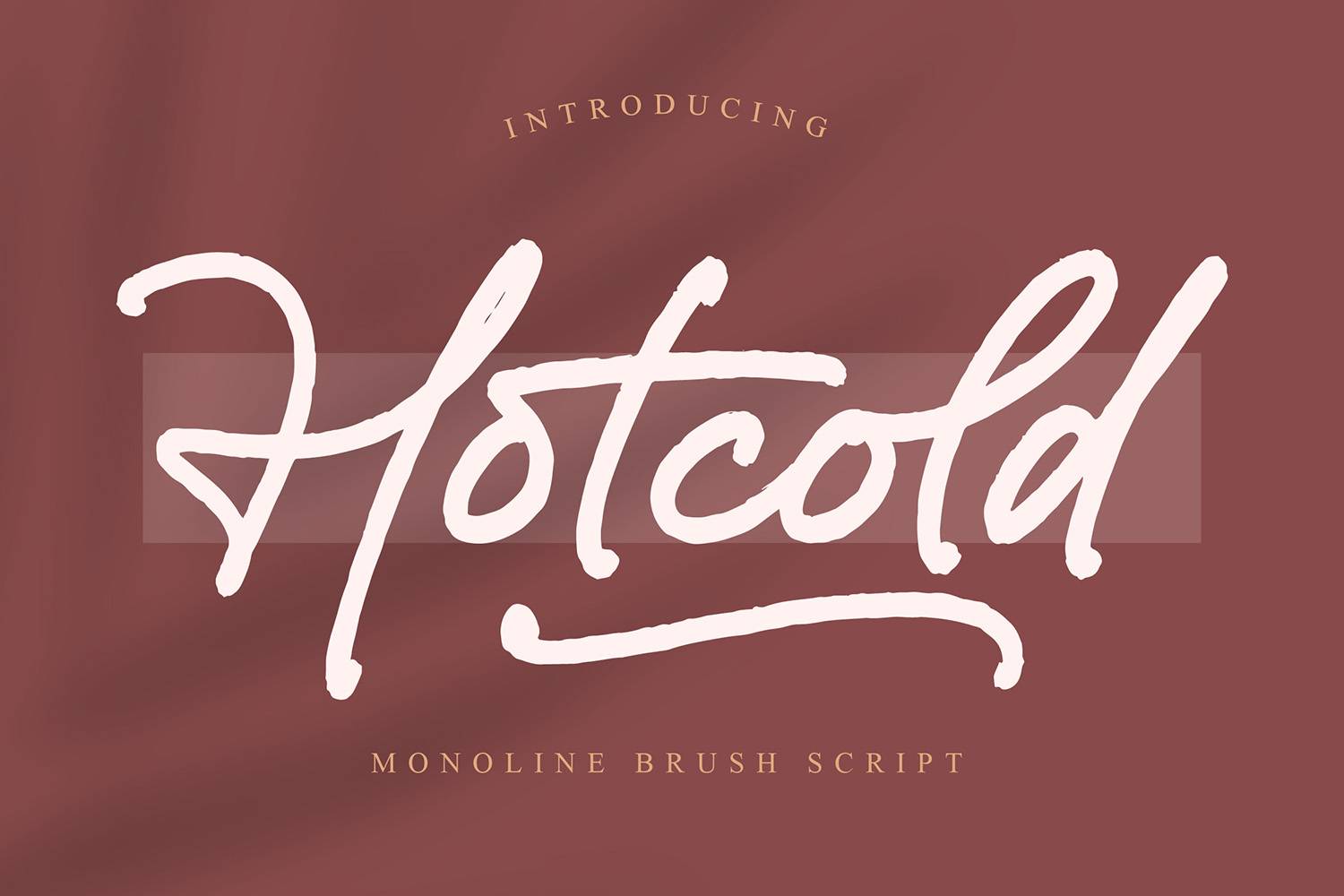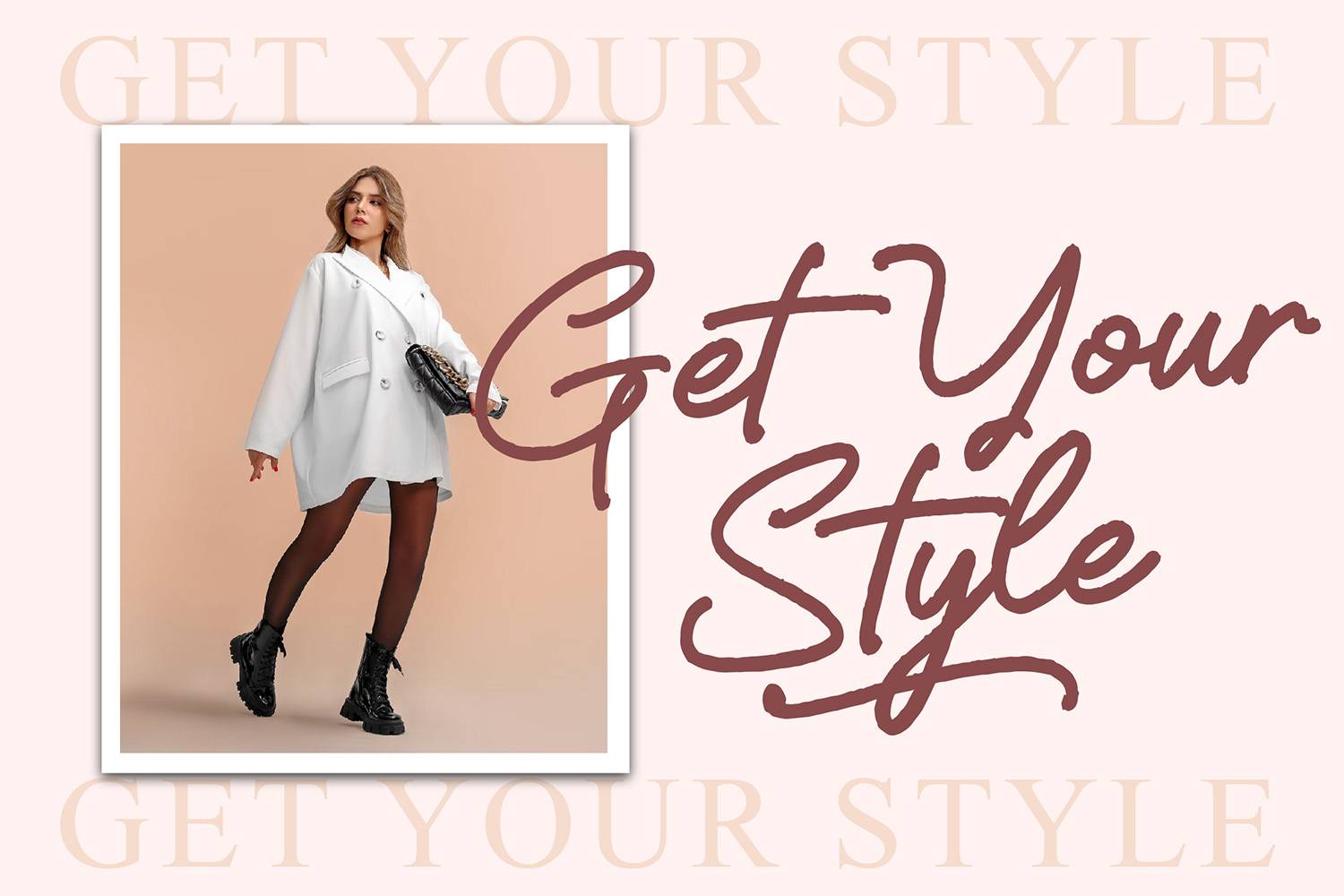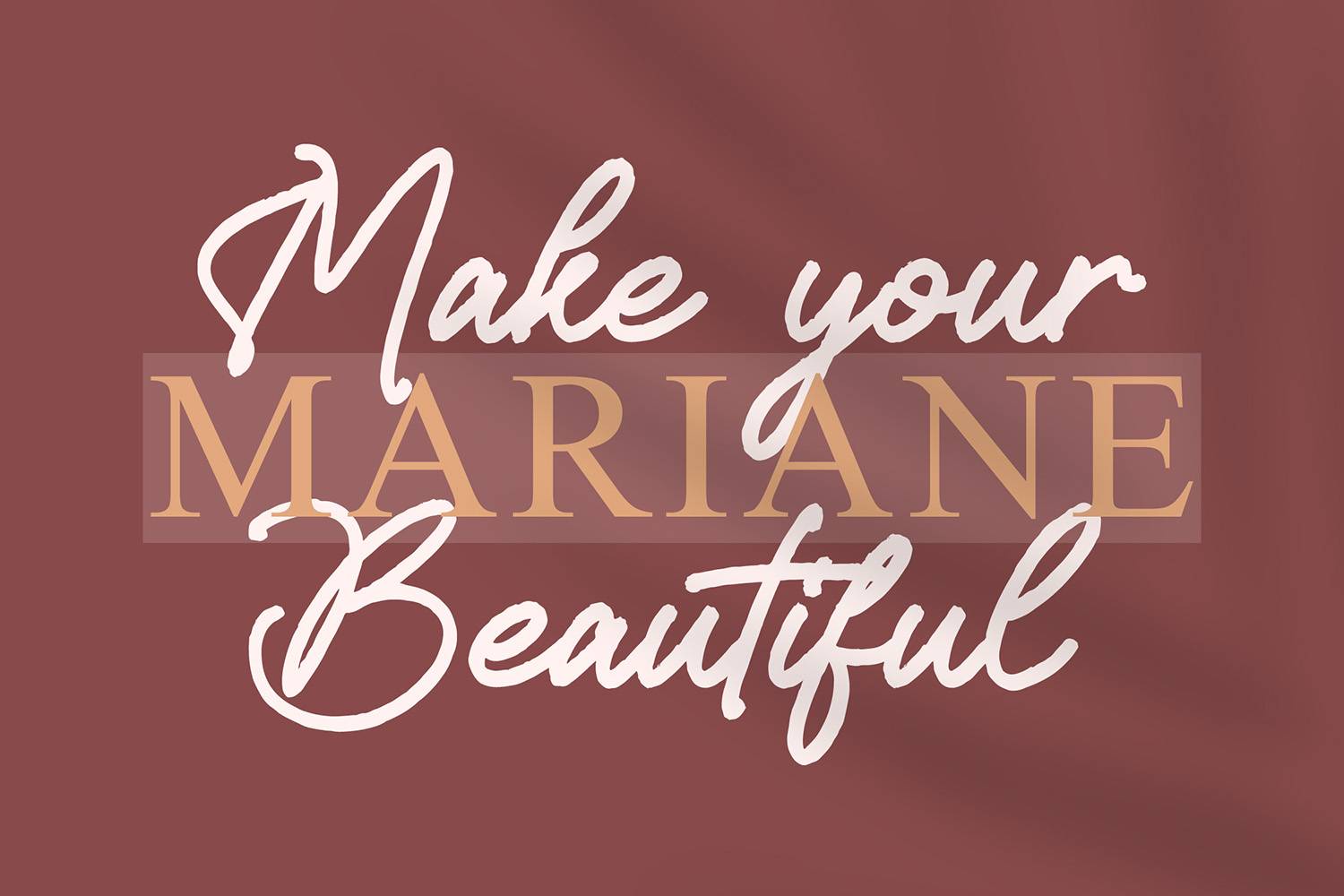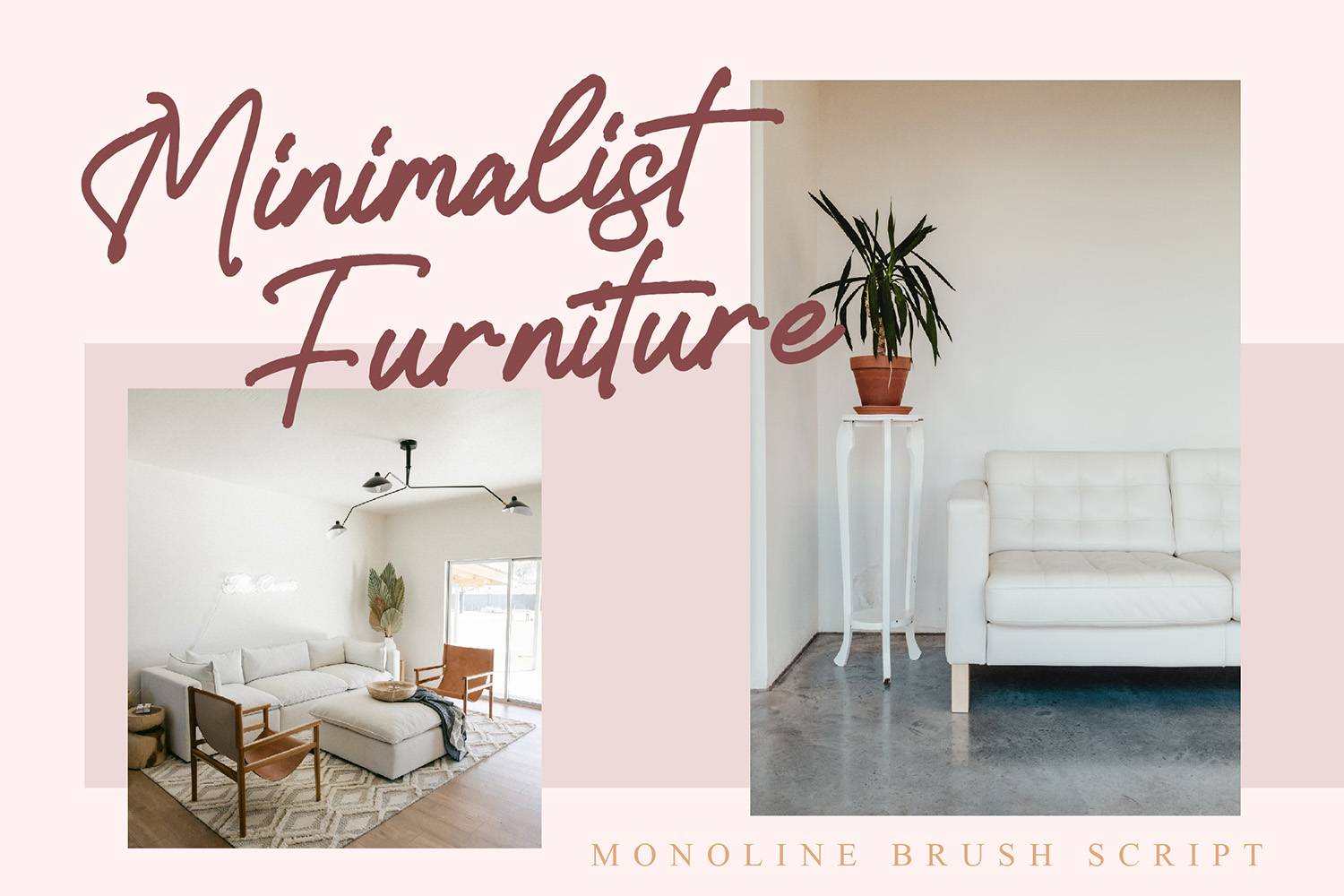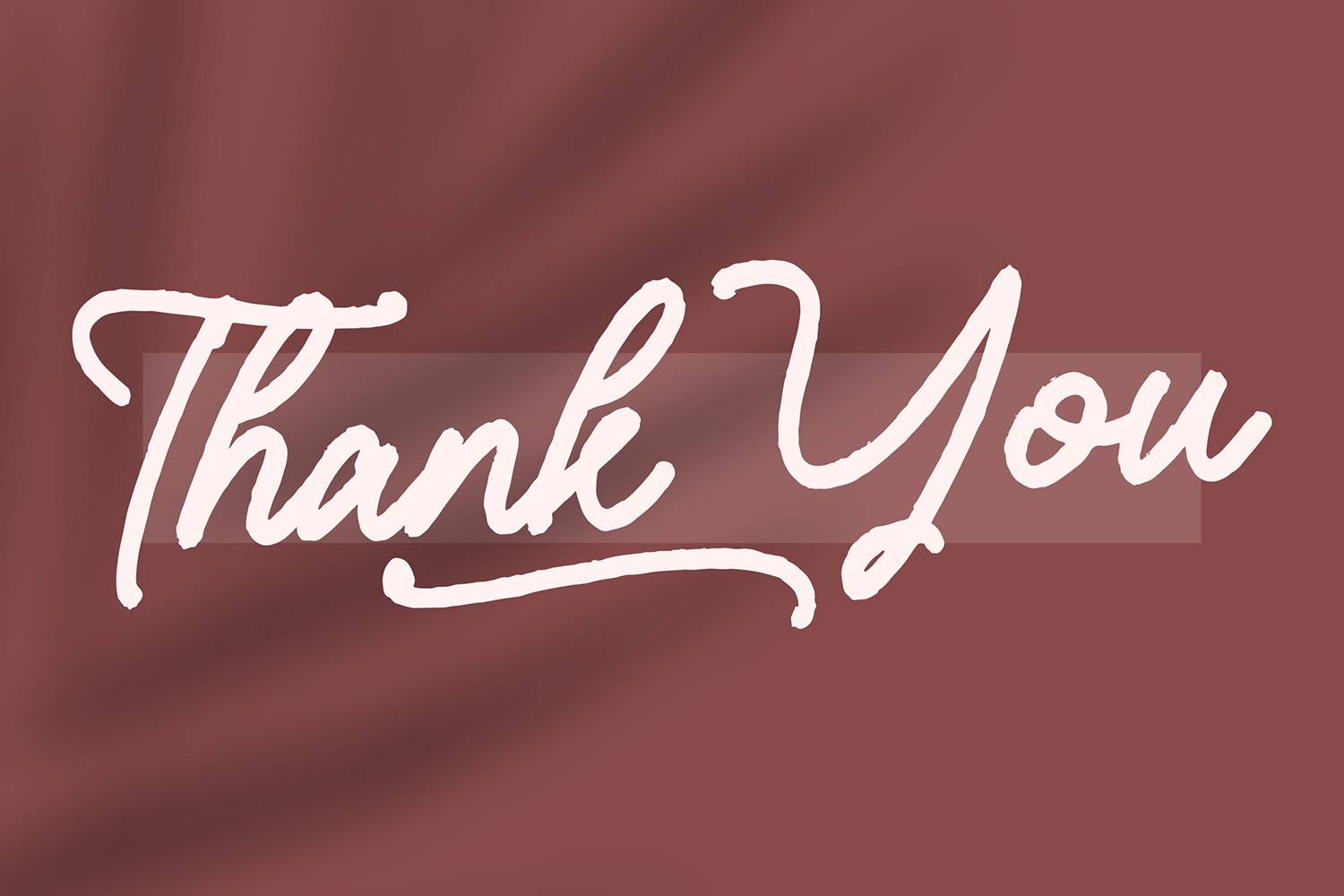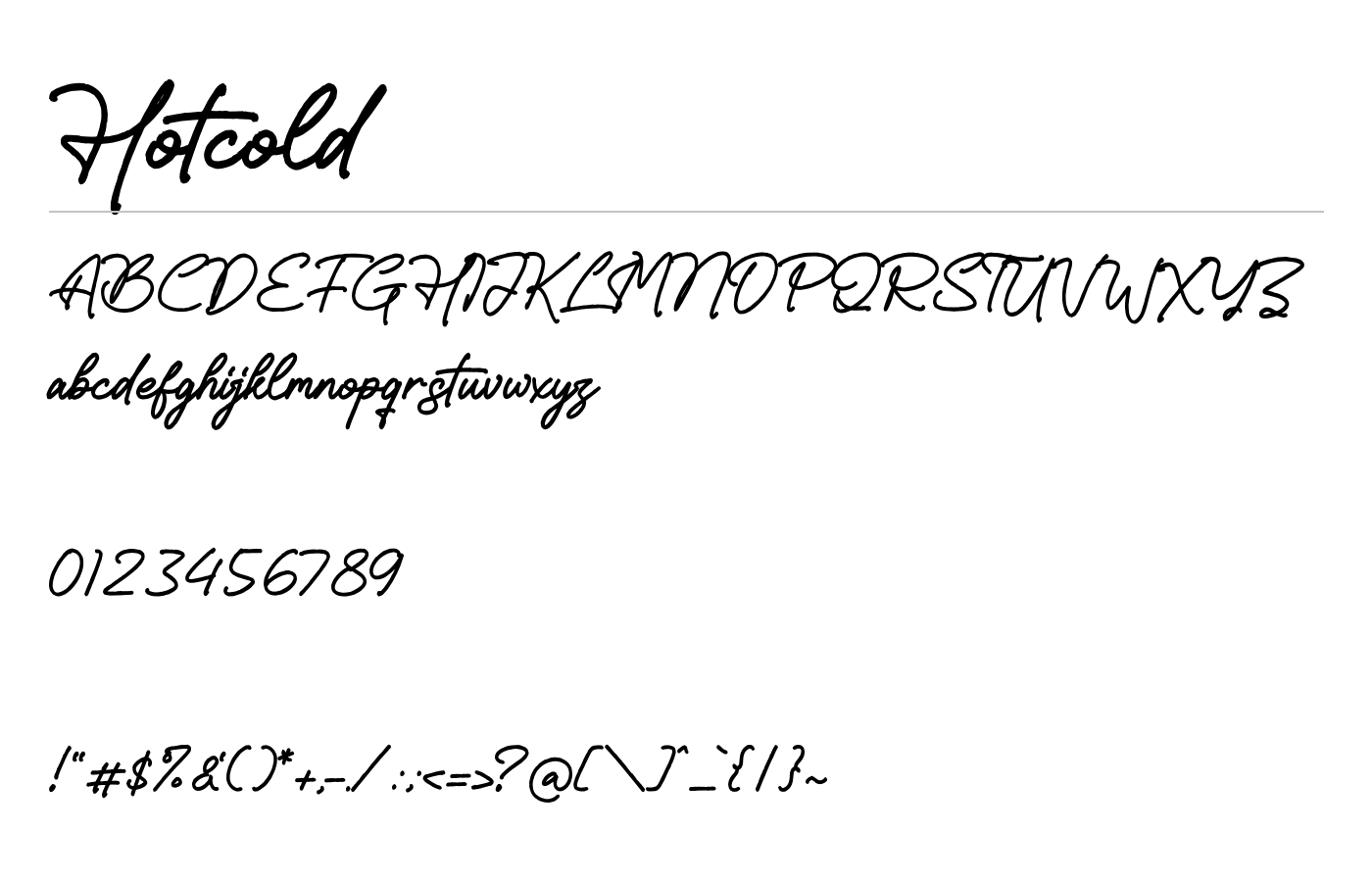
Hotcold is a lively handwritten script font with a casual and energetic feel, featuring smooth, flowing strokes and moderate contrast. Its slightly irregular shapes and playful style make it perfect for creative branding, invitations, and modern designs that want a personal, approachable touch. This font works well in headlines and logos where a friendly, informal vibe is desired.
Hotcold Font